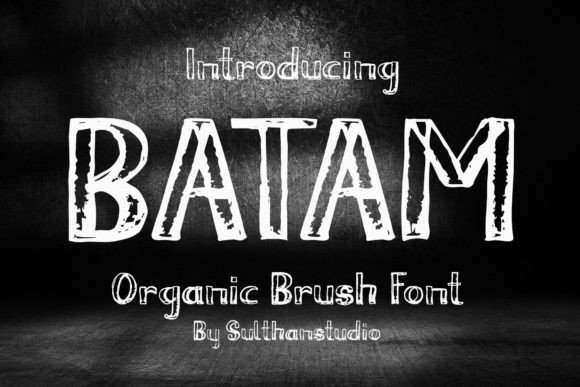
Unleash an explosion of creativity with Batam Brush Font, the ultimate font for capturing the essence of modern UI design. This remarkable display font is an enchanting tapestry of organic brushstrokes, effortlessly adding a touch of elegance and sophistication to your digital creations. Step into a world of visual wonders as you explore the endless possibilities of Batam Brush Font, tastefully crafted by the talented artisans at Sulthan Studio.
Immerse yourself in the beauty of Batam Brush Font, a captivating display font that dances across your screen, leaving a trail of artistic brilliance. Its flowing lines and enchanting curves evoke a sense of playfulness and dynamism, perfectly complementing modern UI designs that demand attention. Unleash your inner artist and let your creativity soar as you transform ordinary text into captivating headlines, eye-catching logos, and visually stunning social media posts.
With Batam Brush Font, you hold the key to unlocking a treasure trove of design possibilities. Its versatility knows no bounds, seamlessly adapting to a wide spectrum of projects, from posters and covers to branding and websites. Watch in awe as your designs captivate audiences, leaving an unforgettable impression that sparks conversation and ignites imaginations. Embrace the power of Batam Brush Font and elevate your designs to new heights of visual excellence.